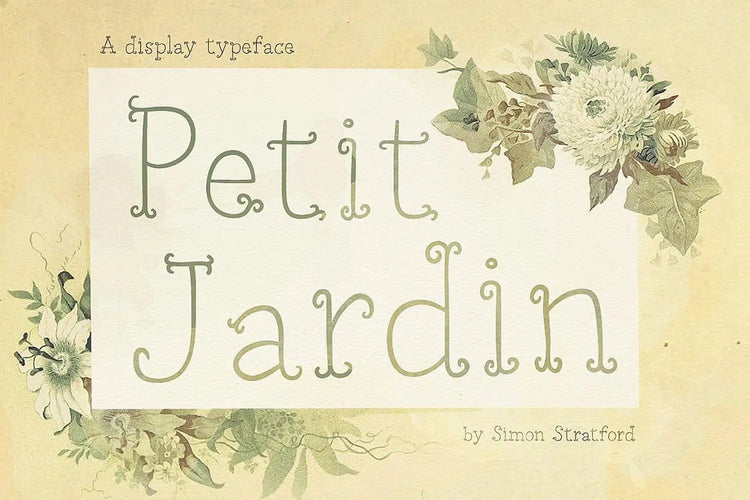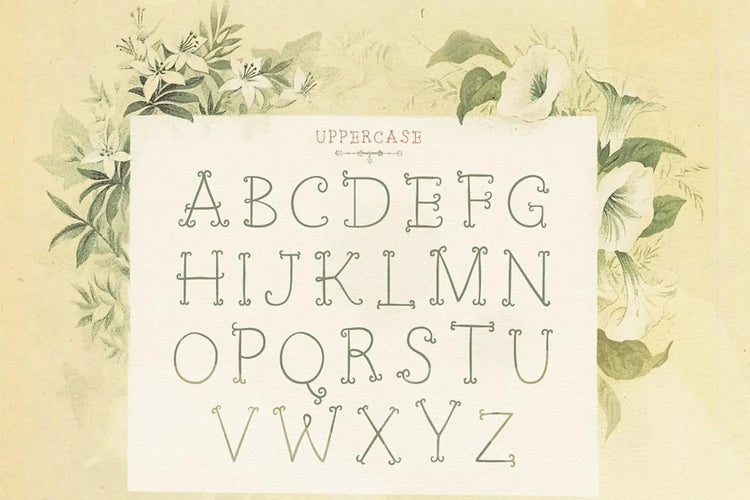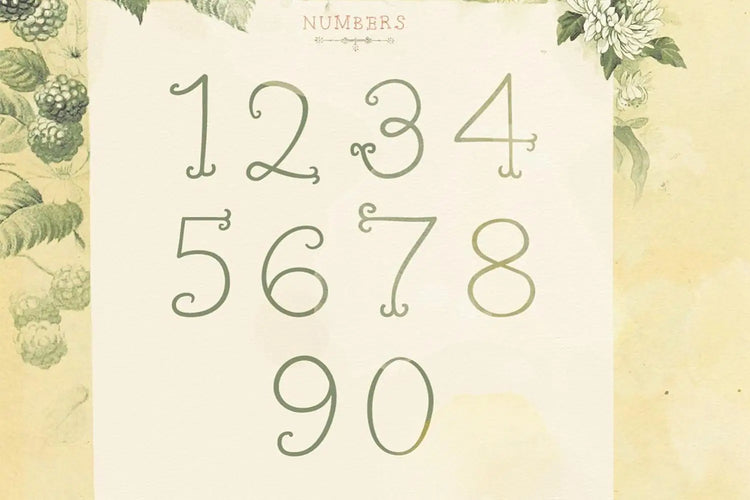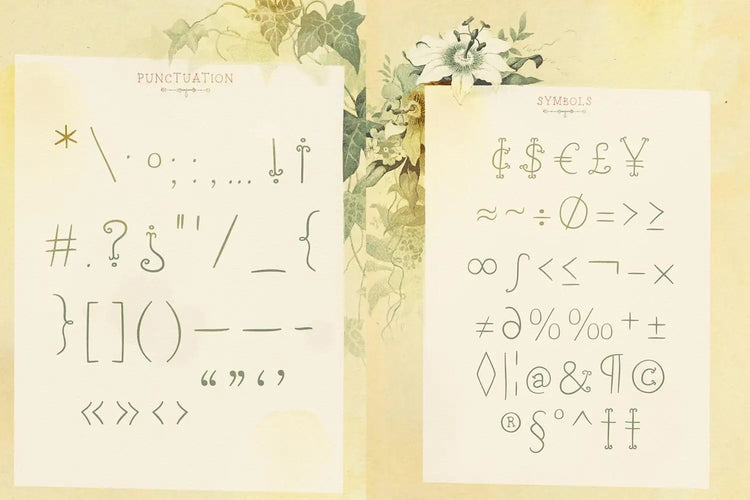
Petit Jardin — Ornate Vintage Display Serif Font
About Petit Jardin
Petit Jardin font, ladies and gentlemen, is akin to a leisurely stroll through a picturesque French garden bathed in the warm sunlight. It exudes that whimsical aura of a Parisian café, while you are sipping a café au lait on a sun-soaked afternoon.
It's the font that speaks fluent French without the need for Rosetta Stone.
Each letter in this font boasts a delicate flourish like the intricate ironwork gracing old French balconies. Whether you're crafting a romantic wedding invitation, designing a cosy bistro menu, or simply longing for a touch of French sophistication, Petit Jardin font has your back.
If Petit Jardin font were a celebrity
If, by some surreal twist of fate, Petit Jardin font were to suddenly find itself strutting down the red carpet of fame—its celebrity doppelganger would undeniably be none other than the illustrious Catherine Deneuve.